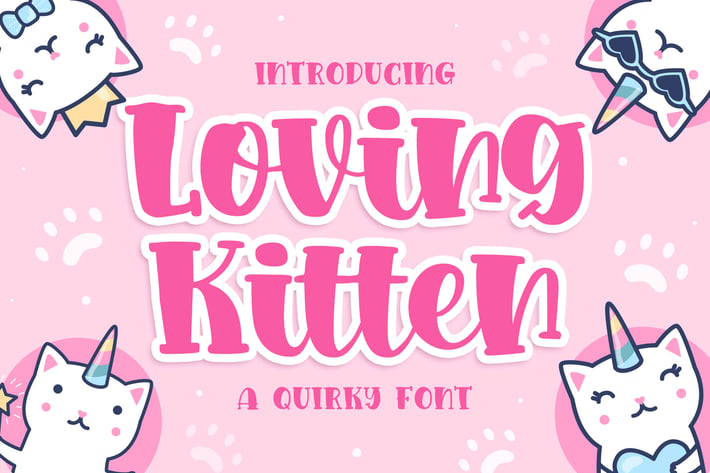
Loving Kitten a Quirky Font
Introducing of our new product the name is Loving Kitten a Quirky Font. Loving Kitten inspired by Quirky Handwritten style this font is a fun theme very good for display, tshirt design, craft, quote sign, logotype and etc